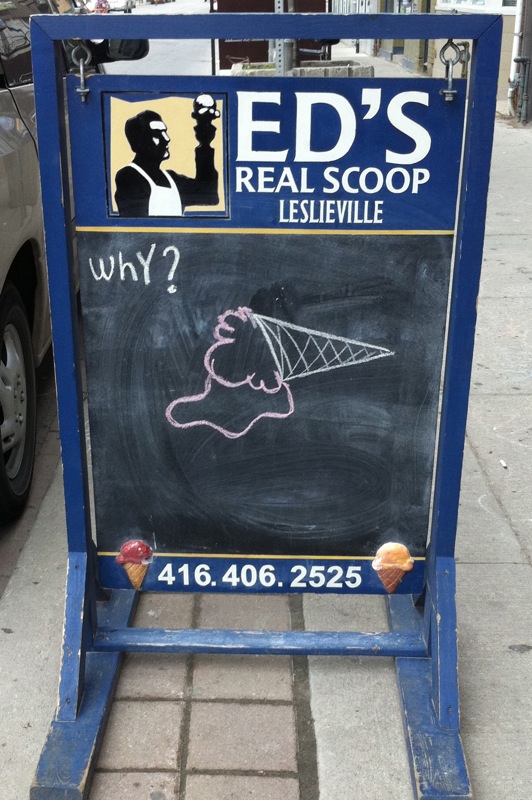
WhY?
Why?
This sign takes the most primal question – why? – and pairs it with a drawing of a fallen ice cream cone. It evokes childhood loss – those small tragedies that at the time leave you heartbroken. The chalkboard only reinforces the sense of early lessons learned.
It may seem strange to advertise ice cream with an image of disappointment. But perhaps we’re also meant to recall the adult who stepped in and bought the replacement ice cream cone… and being the adult now, we’ll walk into the shop to regain that feeling of comfort and security.